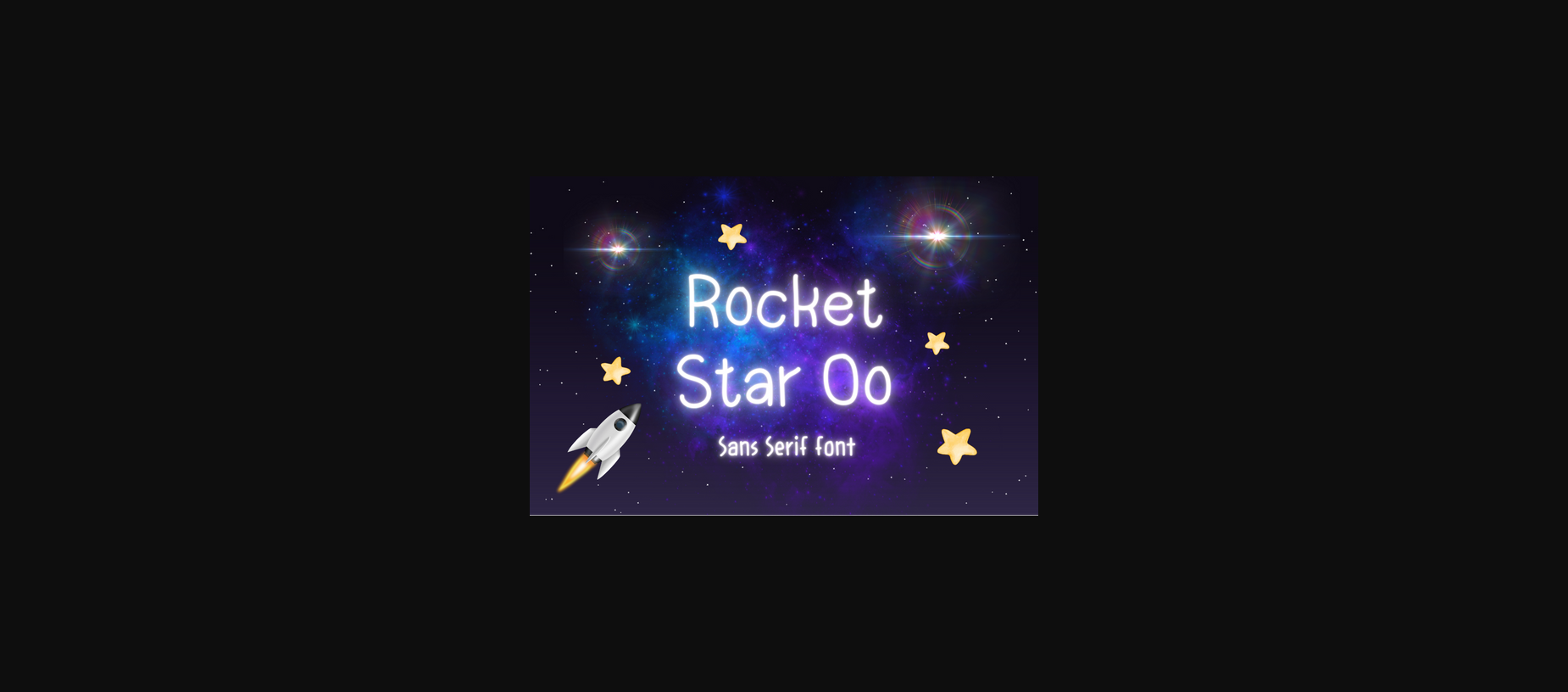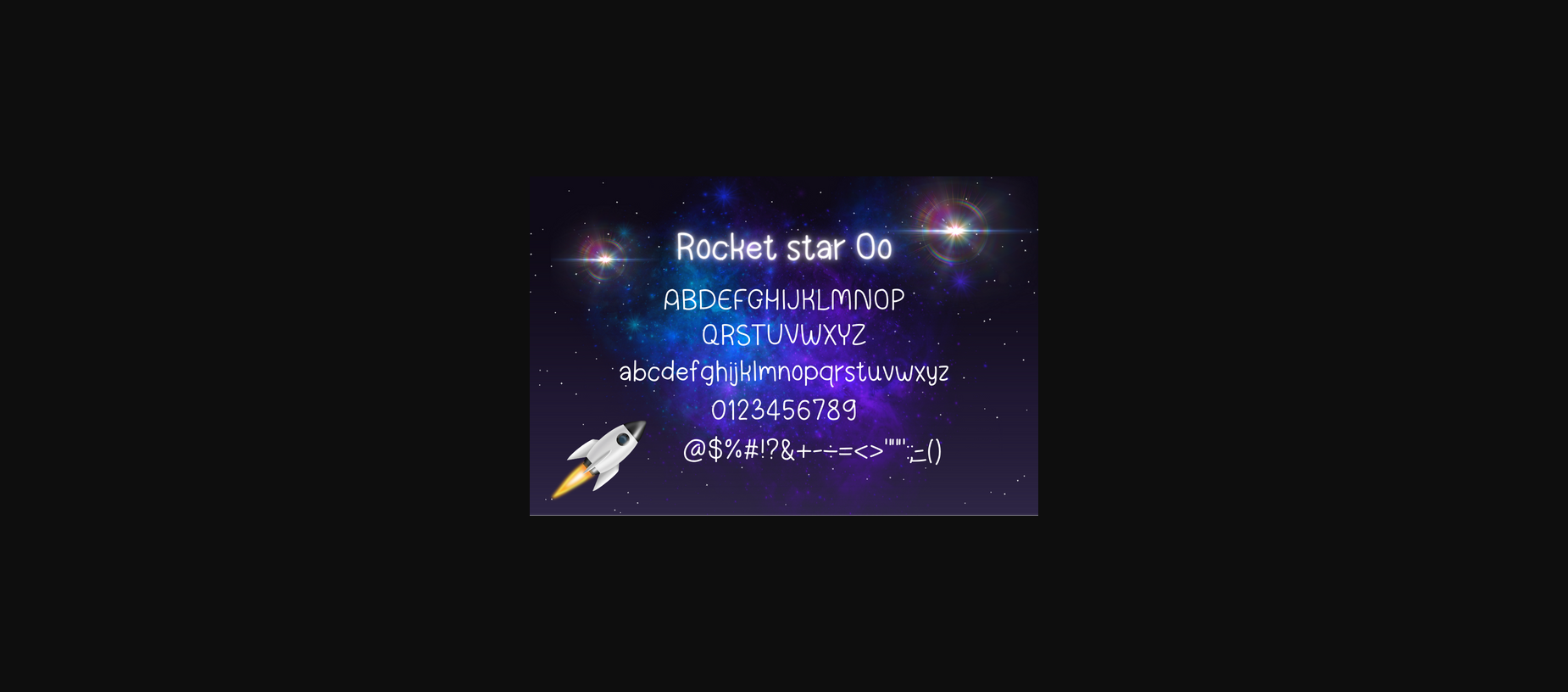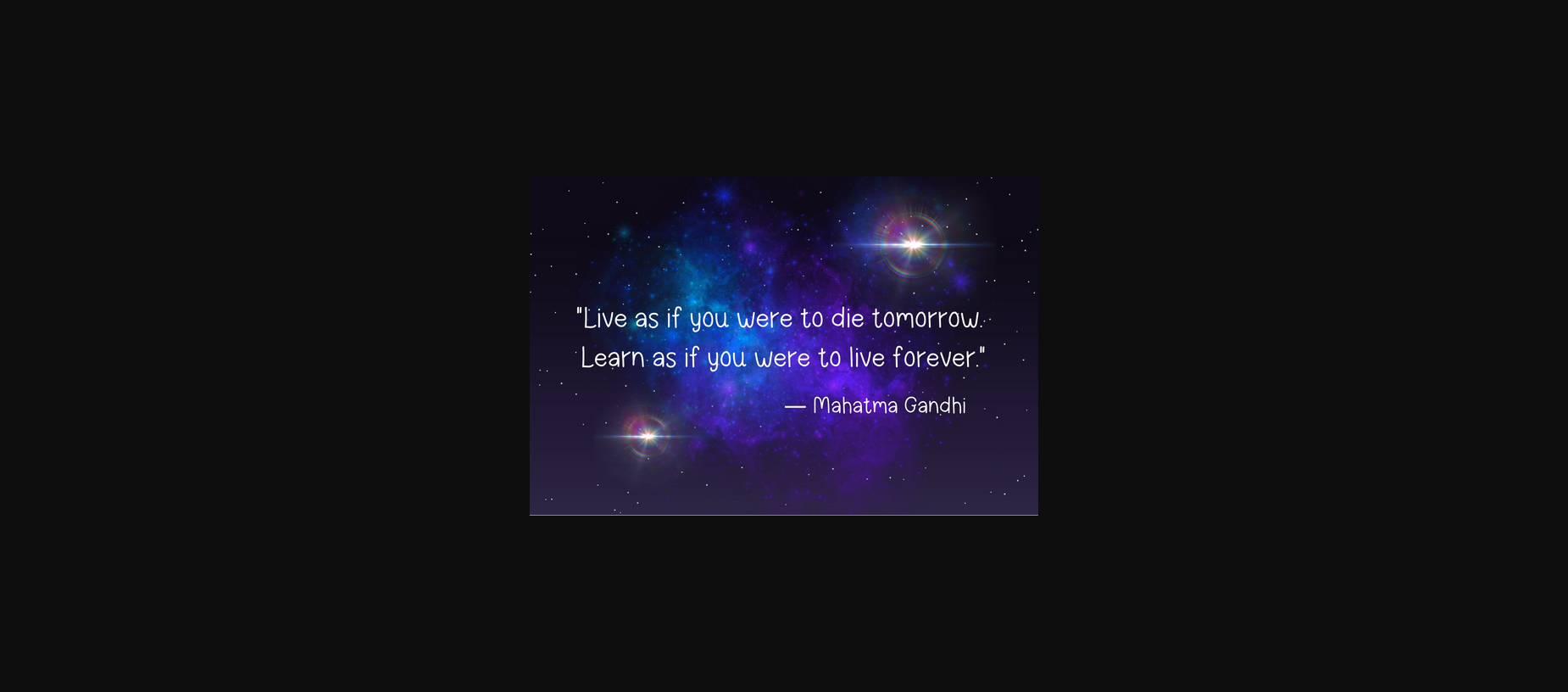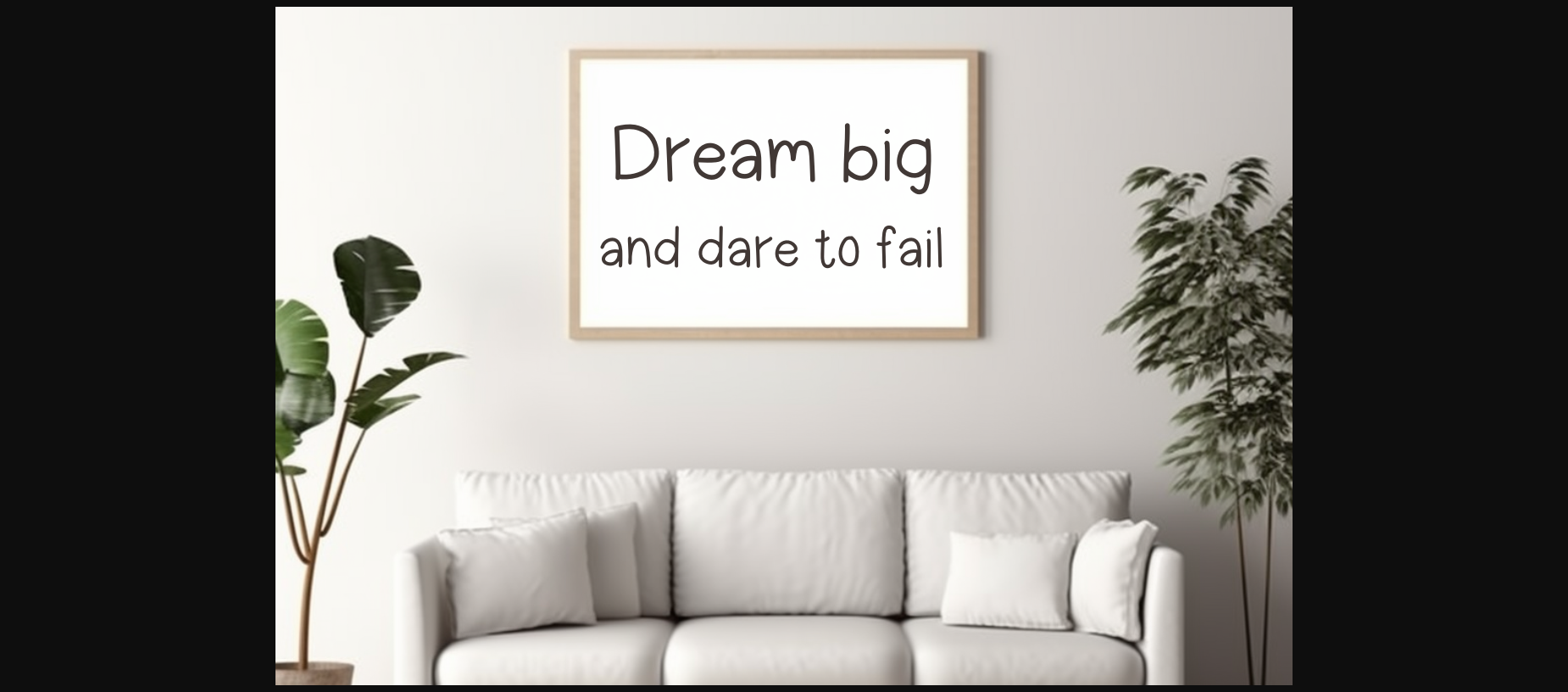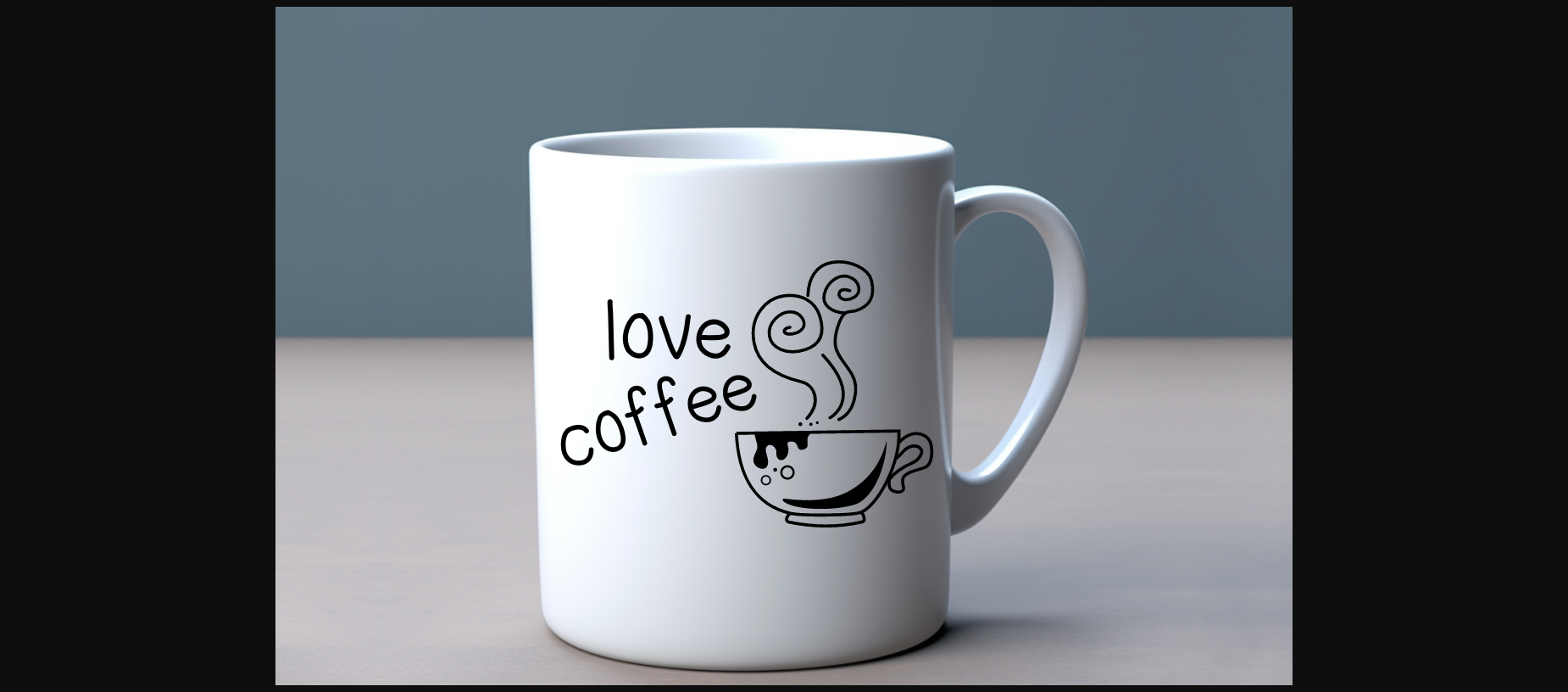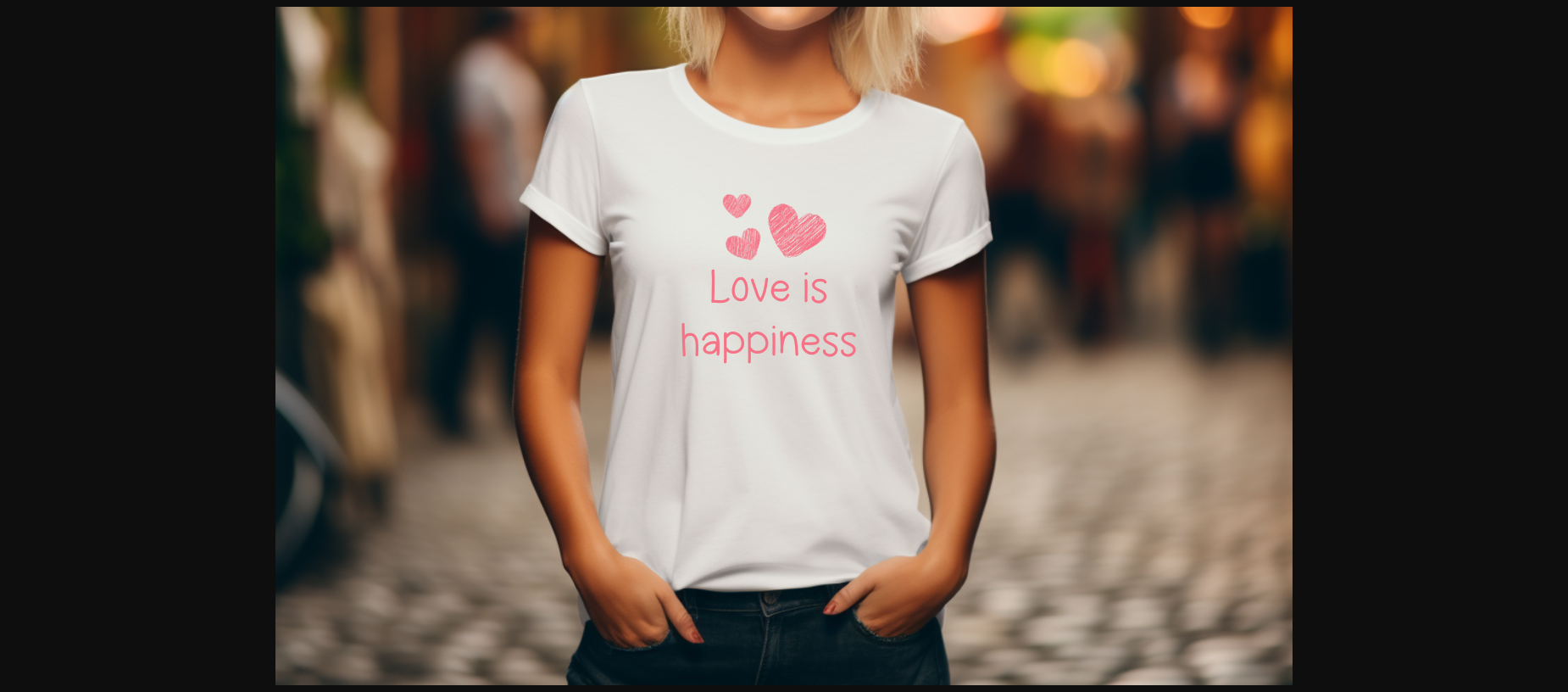
Rocket star Oo is designed in a cute, quirky and modern sans serif handwritten font. It would be an awesome addition to your fun projects and exciting designs.